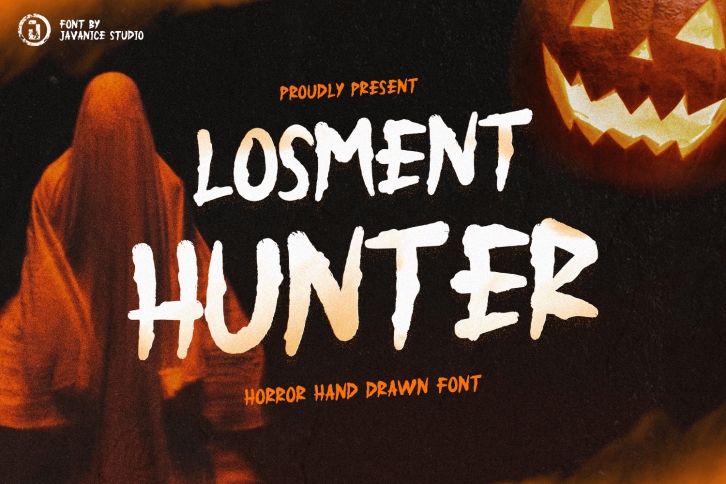
Introducing LOSMENT HUNTER
by Javanice Studio
LOSMENT HUNTER is A Horror Hand Draw Font
LOSMENT HUNTER is perfect for branding project, apparel, labels, magazines, books, greeting / wedding cards, packaging, fashion, make up, stationery, and any type of advertising purpose or just used to express words above the background.